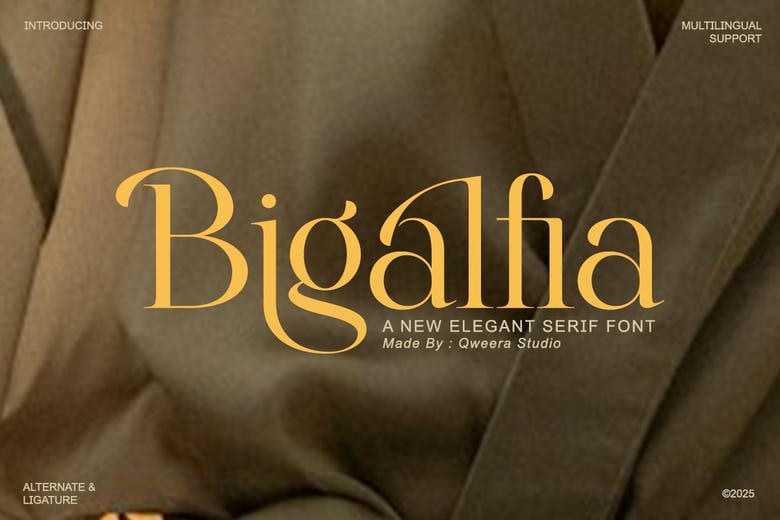
Bigalfia Font
Bigalfia is an elegant, fresh serif typeface, which balances the old proportions with the new style. The Bigalfia typeface is a masterstroke of balance with high-contrast strokes and distinctive, curvaceous terminals that make every word alive.
The unique thing about the Bigalfia font is its large assortment of stylish alternates, especially the long descenders of g and f, which form a rhythmic interlocking effect in a headline. It is a Bigalfia serif to fit in high-fashion magazines, high-end packaging, and high-end web designs in which type is the main point of focus.
The sophisticated design is the means to convey a sense of trust and permanence, and as such, it can be a perfect choice to use in heritage branding or high-end editorial production. Using the in-built ligatures, it is possible to turn plain text to a custom-made work of art that looks refined and expensive. Use Cases Logos, beauty packaging, skincare labels, editorial headlines, magazine covers, wedding cards, luxury websites.
Bigalfia Serif Font